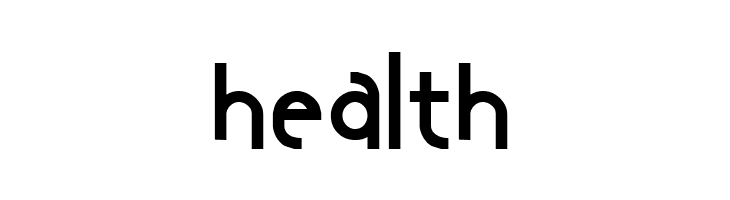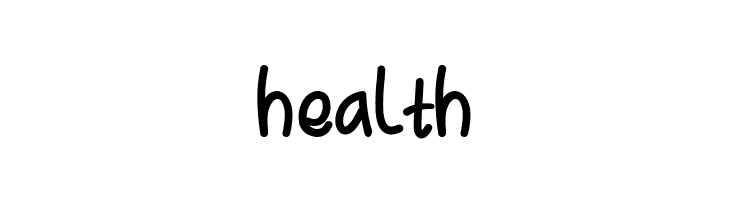
• Morthwicks Plain Italic
A bold, italic font with a dynamic and elegant style.
• Morthwicks Plain Italic
A dynamic italic font with bold, fluid strokes and moderate contrast.
• Most Wazted
A bold, graffiti-inspired font with dynamic, angular strokes.
• Mostios
• Mother Bear Italic
A bold, playful handwritten font with a smooth, slanted style.
• Mourier
A decorative, geometric font with intricate, maze-like patterns.
• Movie StarA
• Mozzana
A charming and elegant handwritten font with fluid, graceful letterforms.
• Mozzana Italic
A graceful script font with fluid, interconnected strokes and elegant flourishes.
• Mr. Kebab Demo
A playful, handwritten font with bold, rounded strokes and a casual, energetic feel.